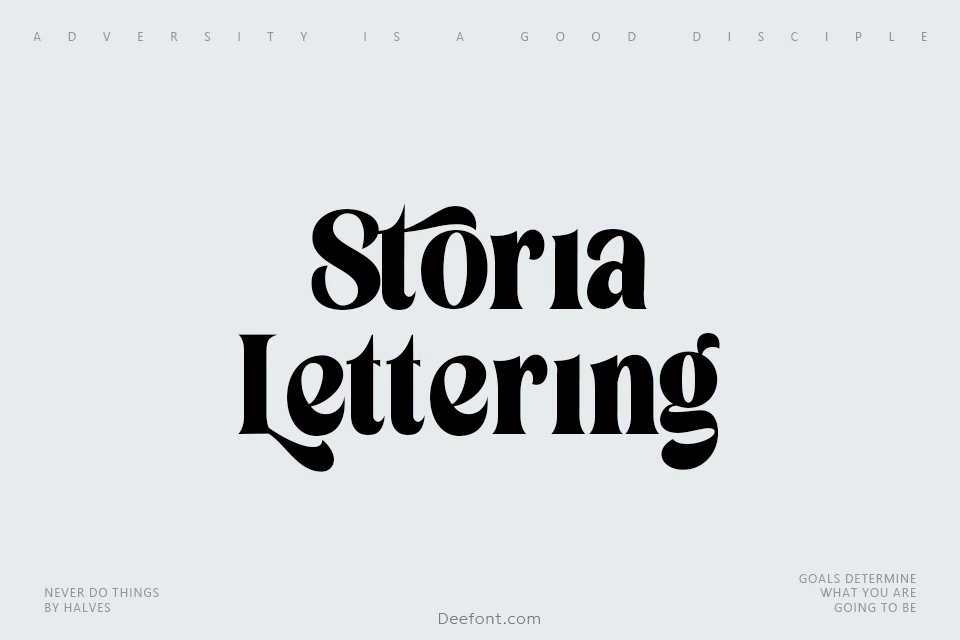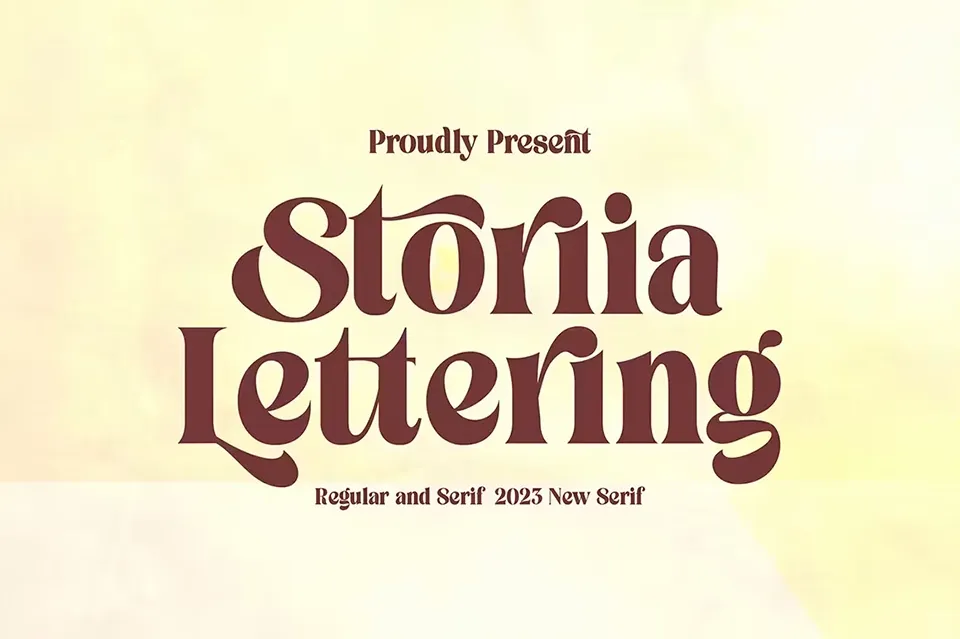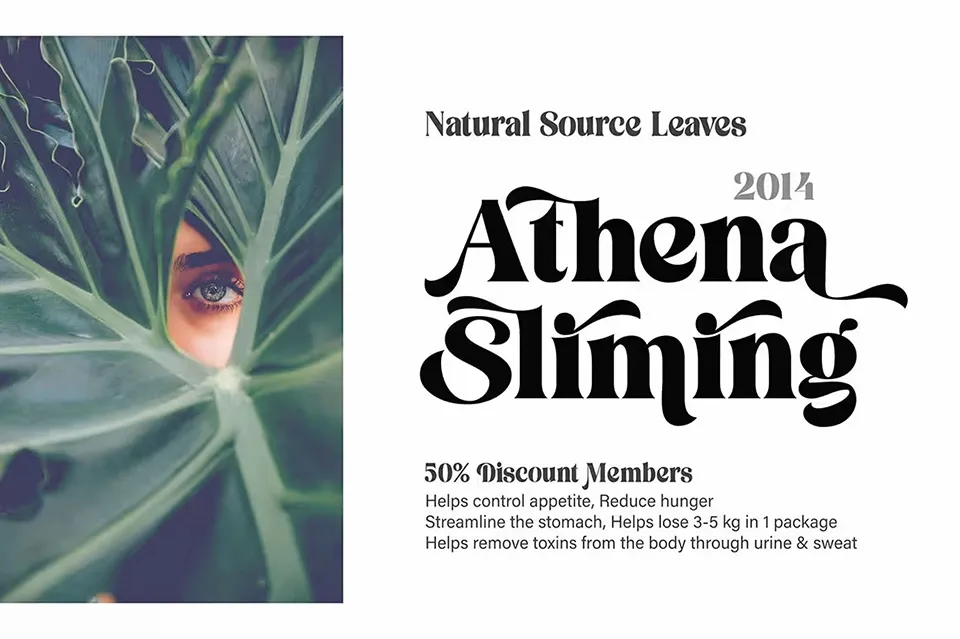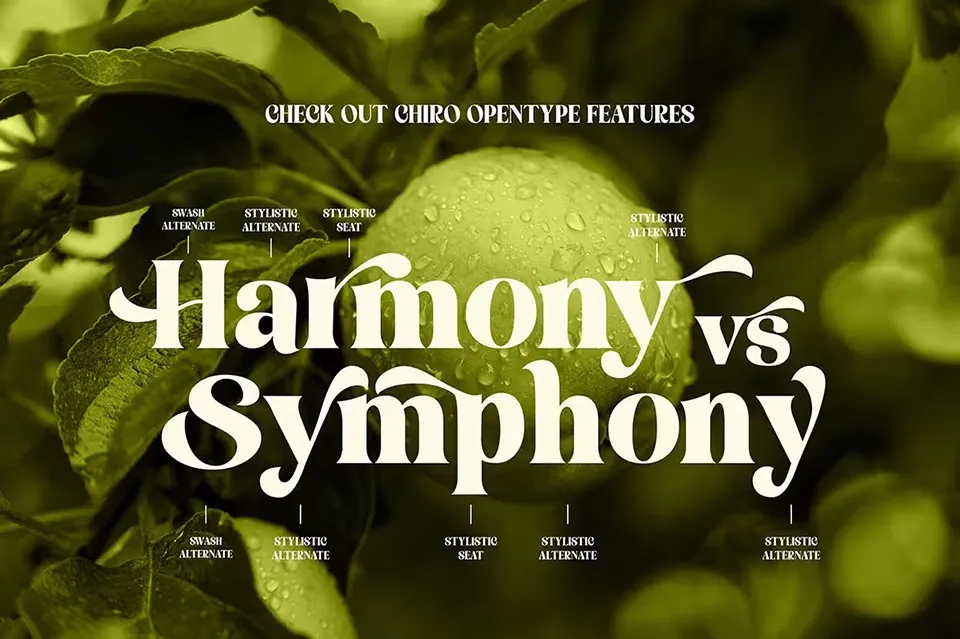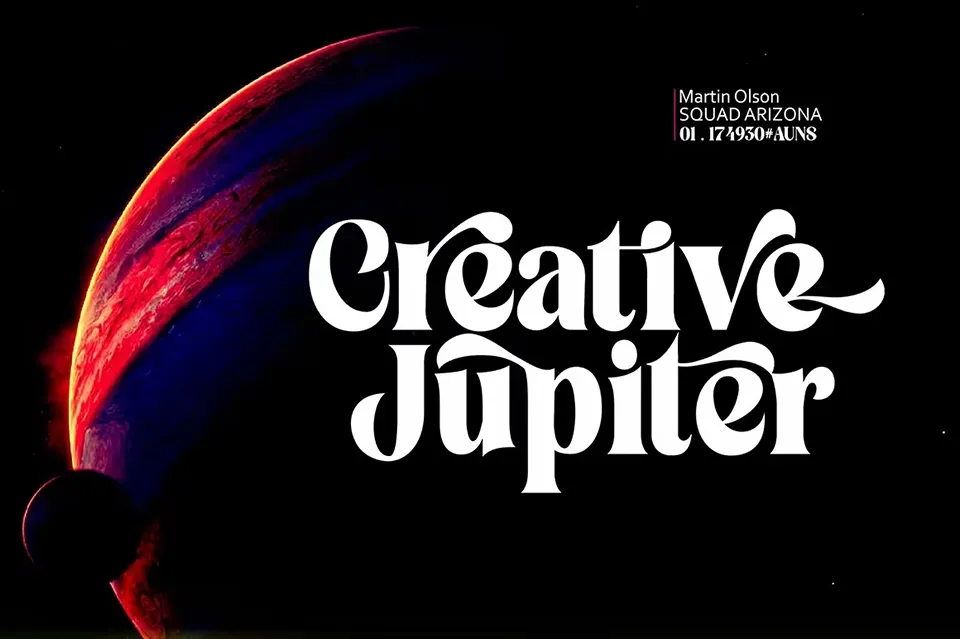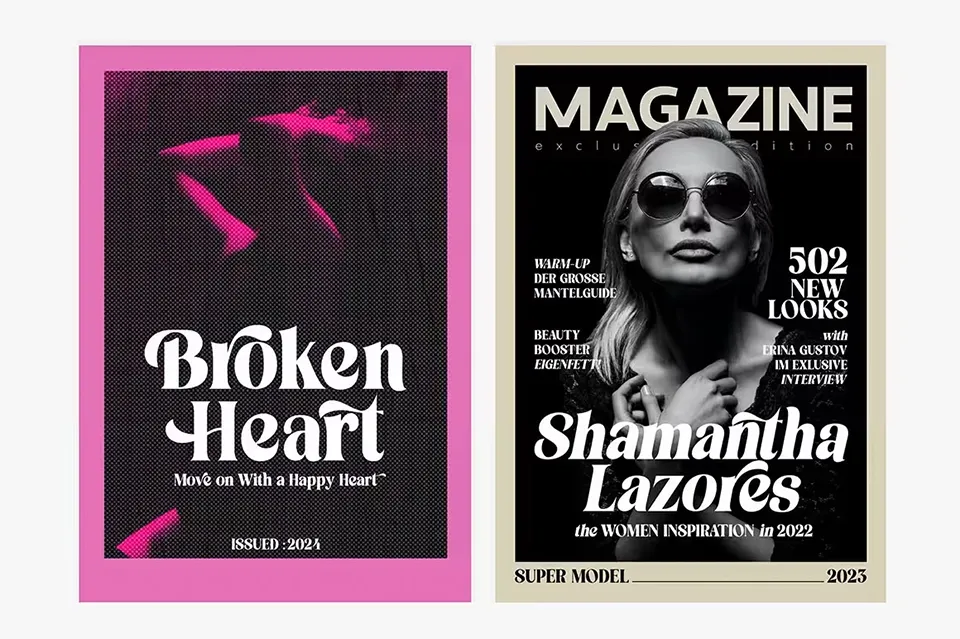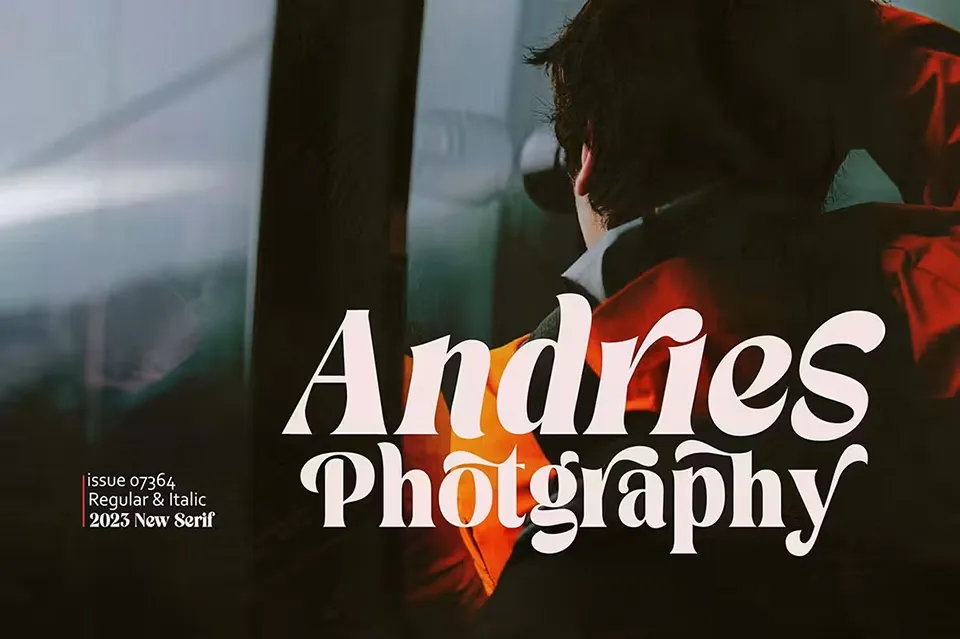
Storia Lettering Font
Storia Lettering Font is a stunning display serif typeface designed by Gatype, featuring captivating alternative ligatures and a bold, sleek style. With both upright and italic styles, it is perfect for editorial headings, posters, t-shirts, magazine covers, and web projects. This font includes multilingual support, swashes, ligatures, and stylistic alternates, making it a versatile choice for creative professionals seeking a modern yet classic look.